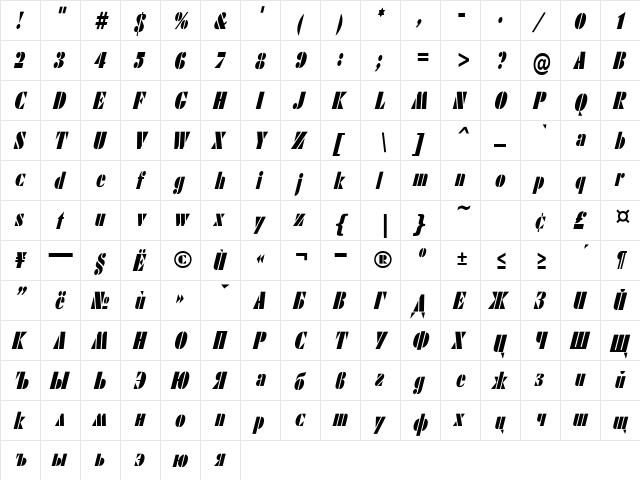
ShablonCond Oblique
Design Context for ShablonCond Typeface
ShablonCond offers clean, dependable letterforms without strong stylistic allegiance, making it a practical choice for designers who need flexibility. The slanted form adds forward momentum and visual energy. The condensed width makes it efficient for tight spaces without sacrificing legibility.